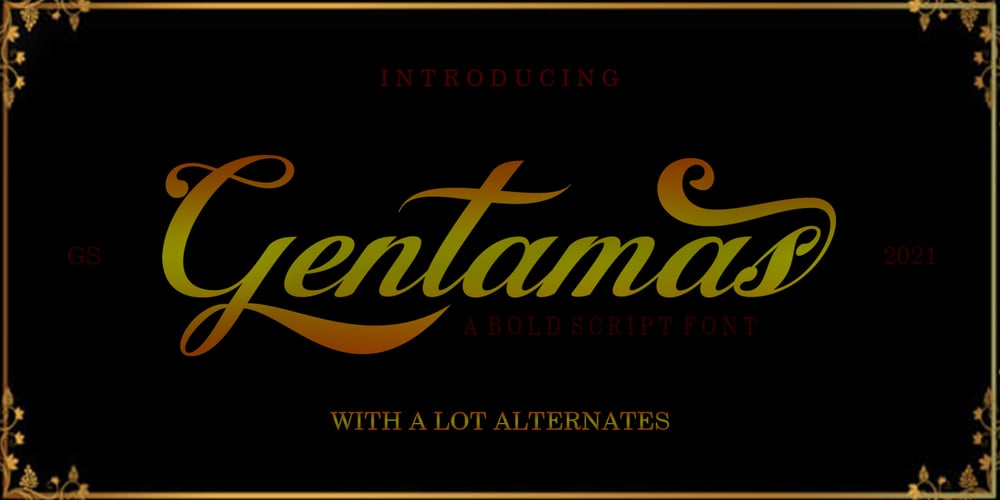
Gentamas Font Family was designed by Muhammad Iqram and published by Gloow Studio. Gentamas contains 1 styles and family package options. Gentamas Inspired by Retro style and combination with Hand Lettering style. I’m made with personality touch every single curve. I hope this can make inspire you from your work. Ideal for logos, handwritten quotes, product packaging, header, poster, merchandise, social media & greeting cards.Files Include :FeaturesBasic Latin A-Z and a-zNumbersSymbolsStylistic SetLigaturePUA EncodeMultilanguage SupportTo enable the OpenType Stylistic alternates, you need a program that supports OpenType features such as Adobe Illustrator CS, Adobe Indesign & CorelDraw X6-X7.There are additional ways to access alternates, using Character Map (Windows), Nexus Font (Windows), Font Book (Mac) or a software program such as PopChar (for Windows and Mac).thank you….